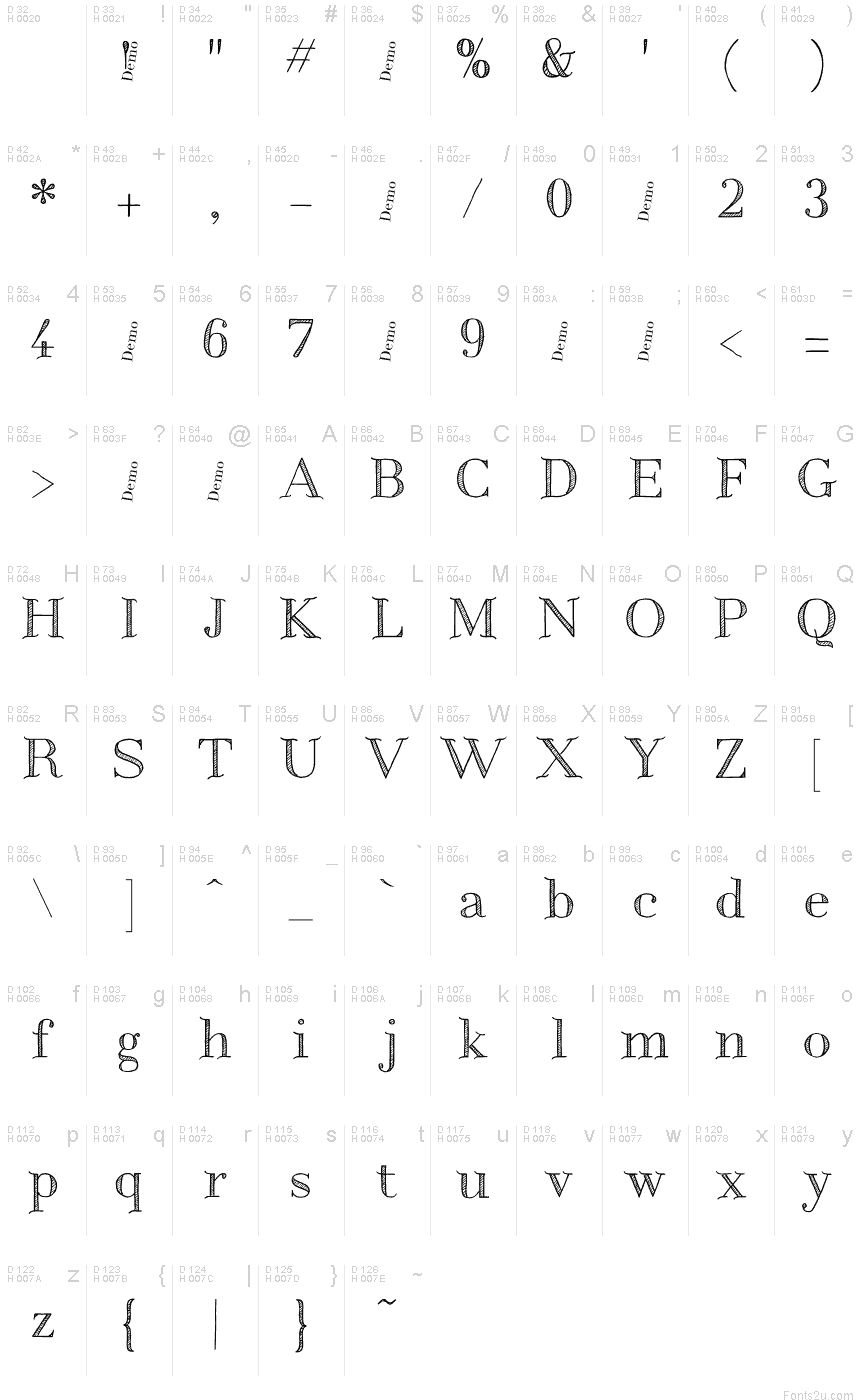
CentaureaDemo
Centaurea, created by Jean Boyault of JB Foundry, is a free decorative display font with finely drawn serif forms. Tall, slender letters carry loose contours and sharp changes in stroke width. Striped hatching appears inside selected strokes, giving the design the look of an unfinished fashion sketch.
An independent fashion label or boutique could use it for branding and packaging with an elegant, visibly handmade edge. The hatching also suits book covers and menus, where lettering becomes part of the illustration.